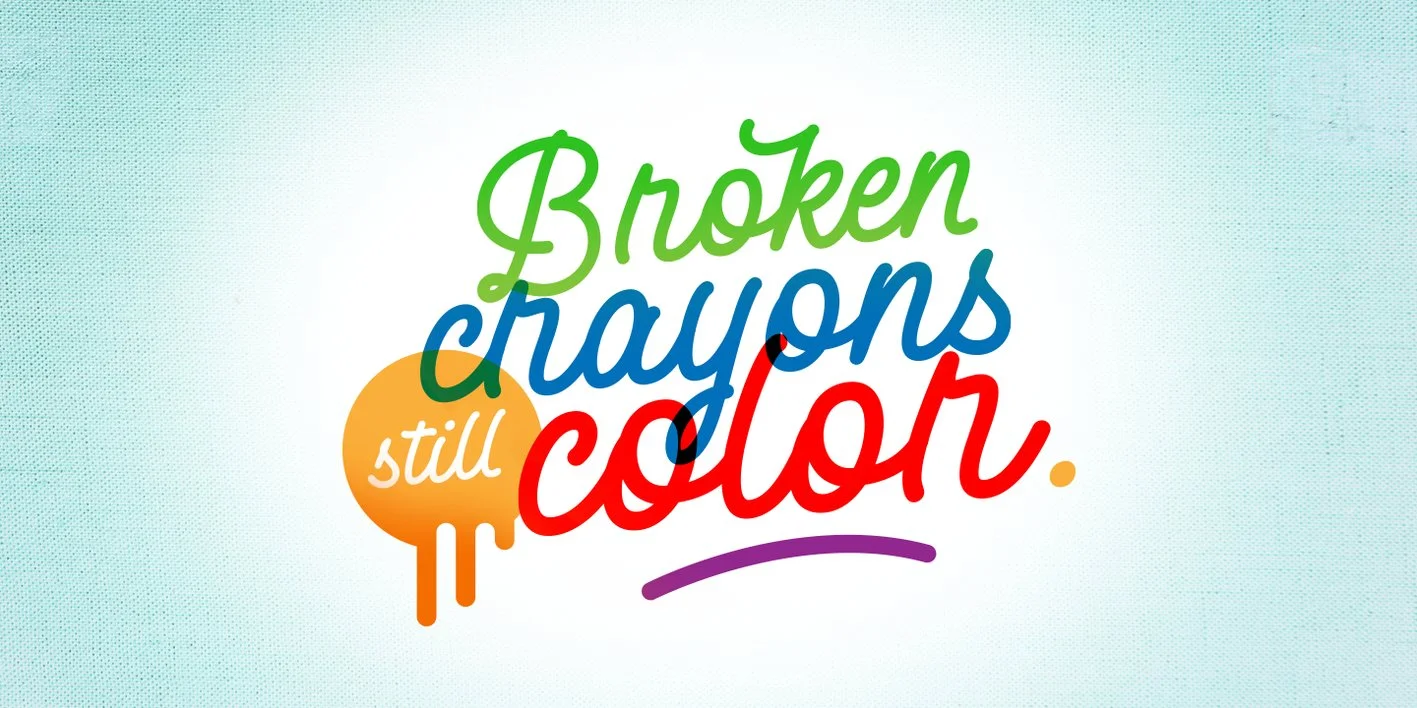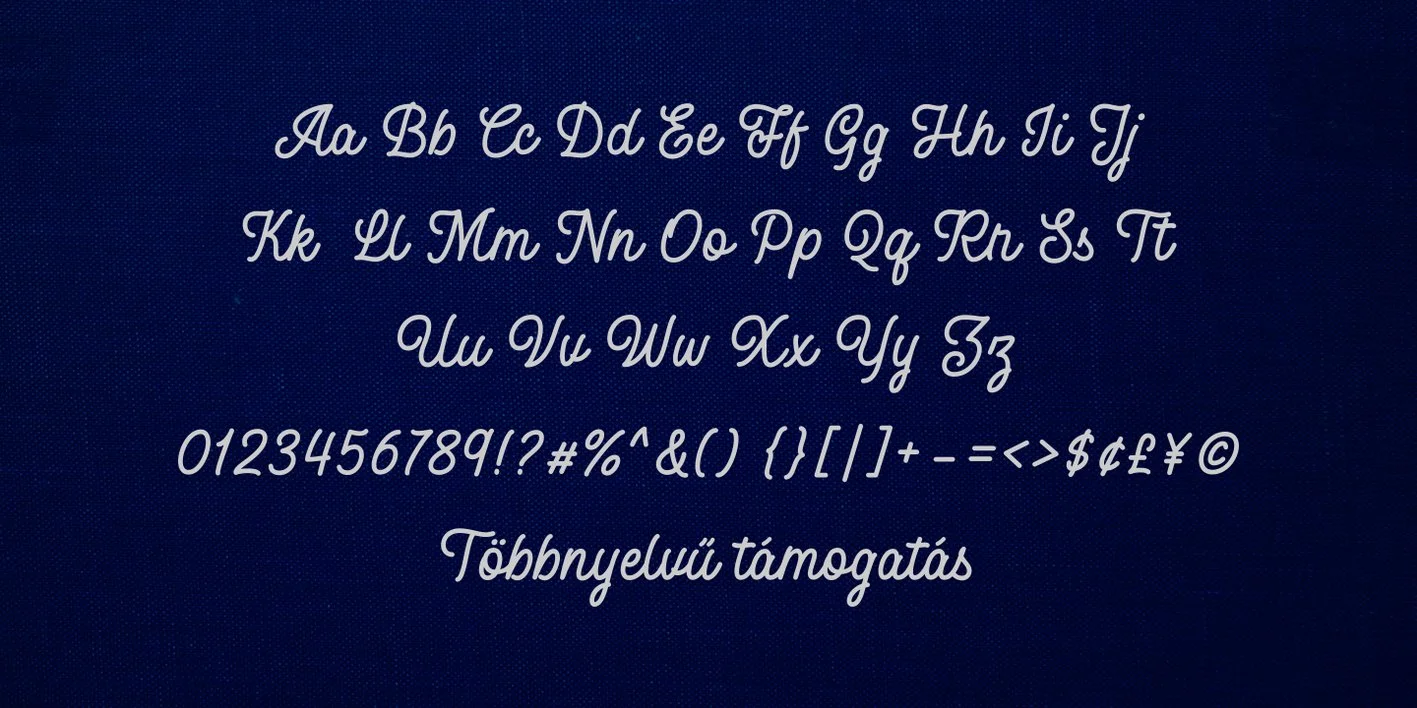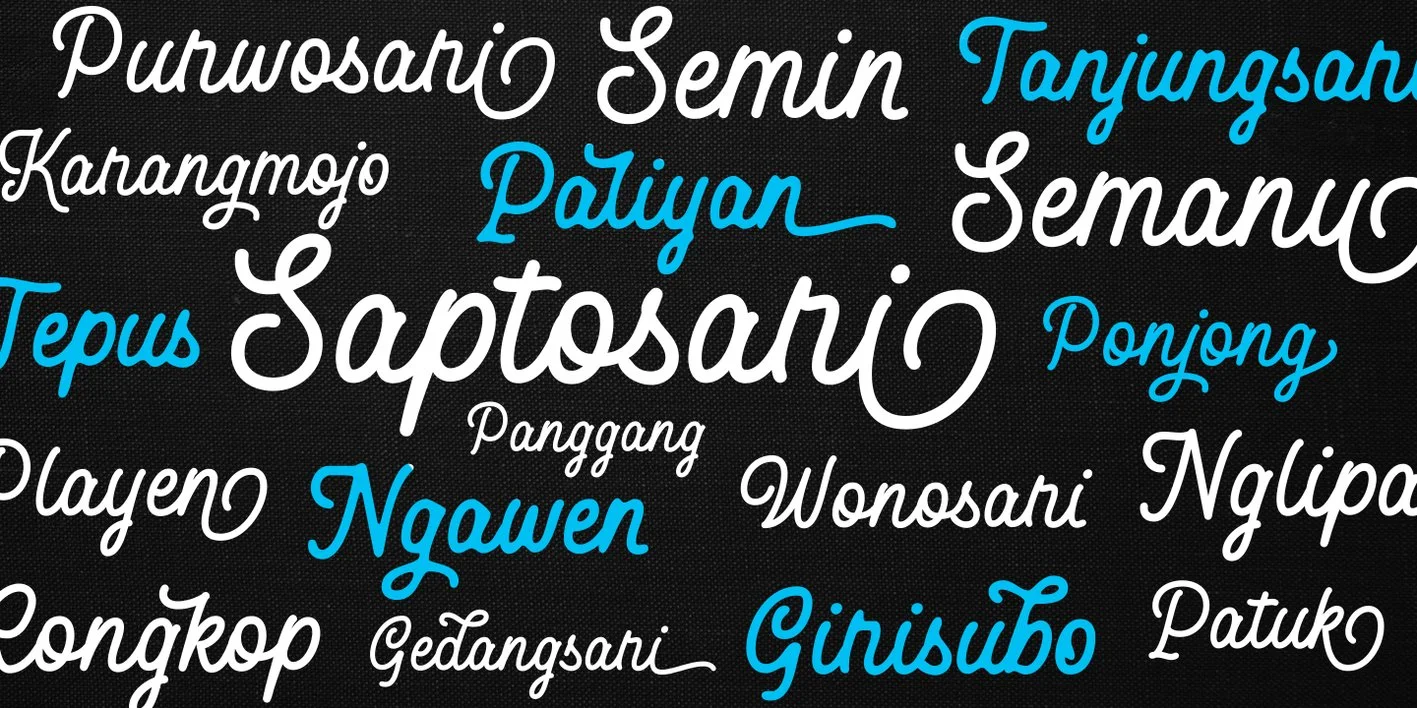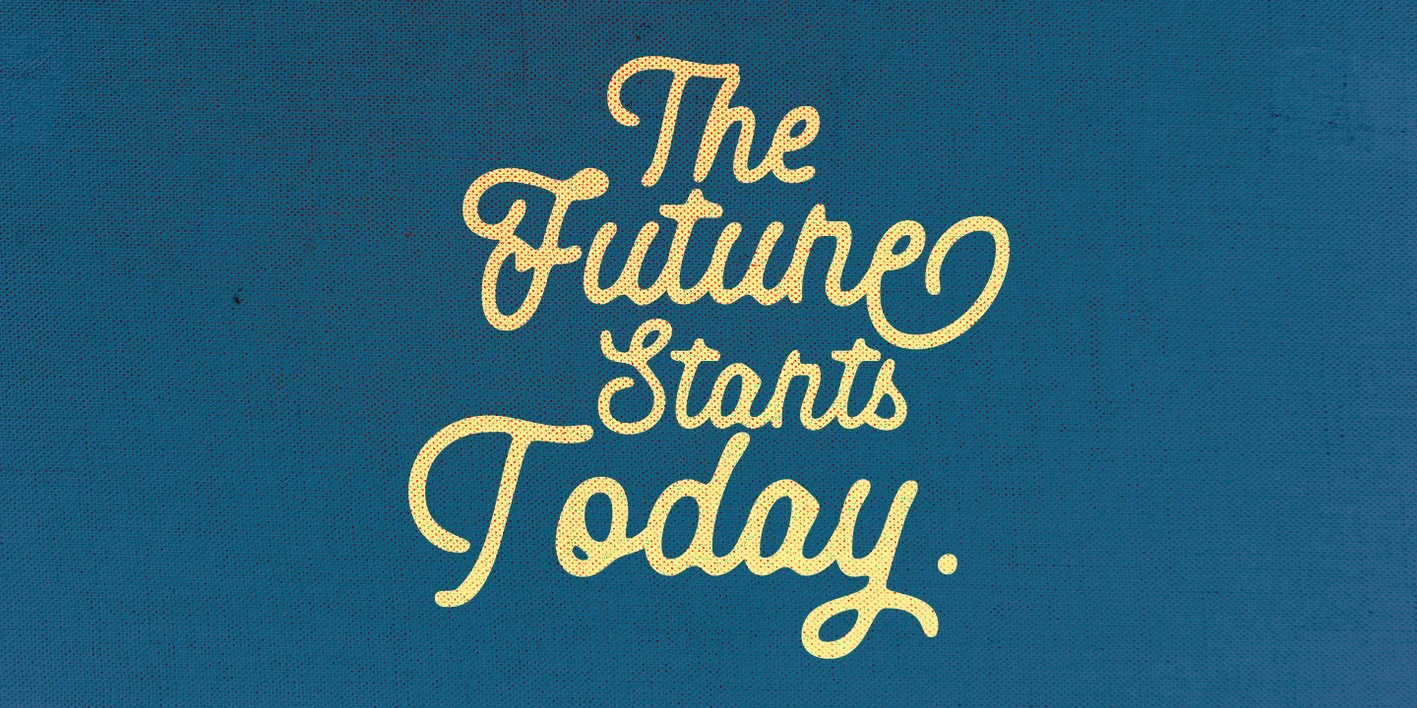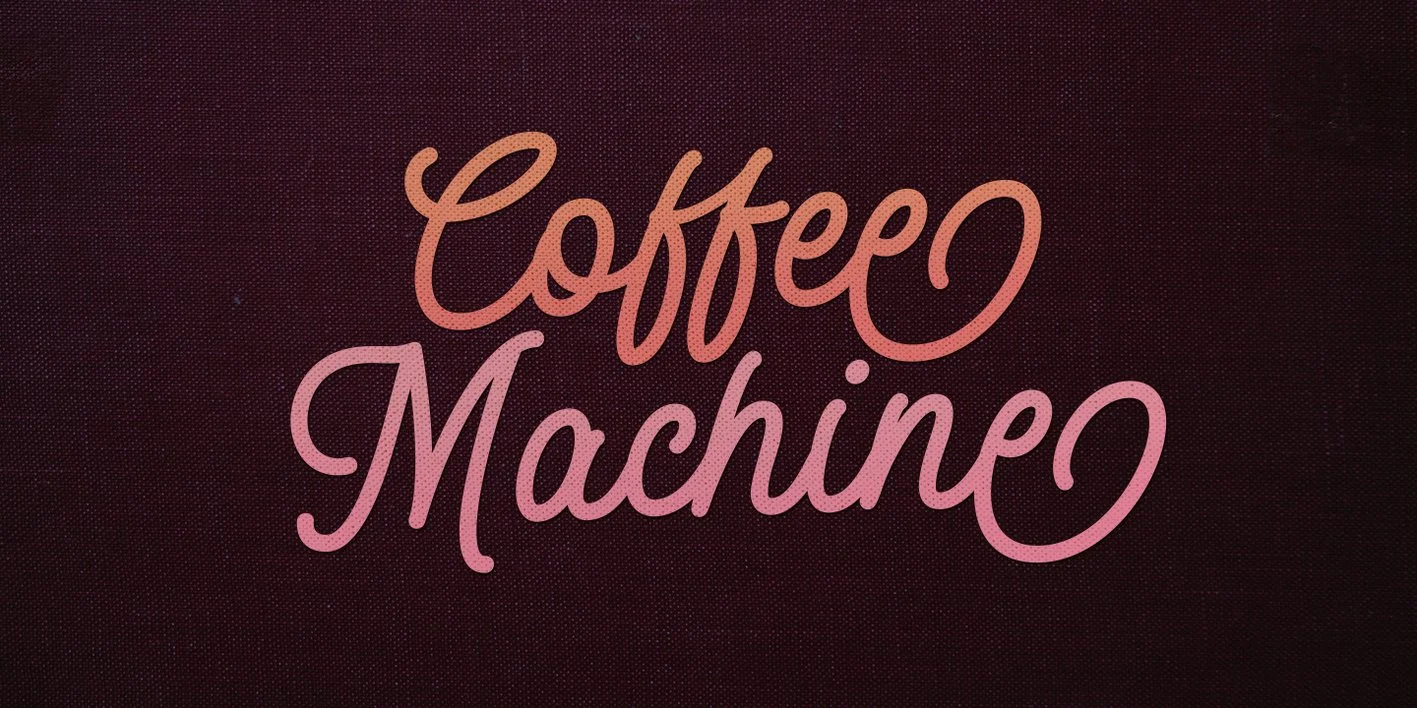
Lendiga Font
Few typefaces manage to balance strong typographic hierarchy support with genuine day-to-day practicality. Lendiga is one of them. The typeface brings a versatile sensibility to a broad range of creative disciplines, with versatility across print and screen contexts that holds up whether the work is print-first or screen-first.
In practice, Lendiga proves particularly effective for packaging design, poster creation, product labels, web design, signage systems. Designers reaching for it find that the type decisions feel resolved rather than laboured — a useful quality when client timelines are tight.
The range of applications extends to editorial layouts, annual reports, environmental graphics, logo design. That breadth is deliberate: the proportions and spacing were stress-tested across a wide range of mock briefs before the typeface was finalised.
UX designers establishing typographic systems for digital products find Lendiga a reliable choice for projects that demand both personality and restraint. The design avoids the self-conscious quirkiness that dates quickly, settling instead for considered distinctiveness that holds up over time.